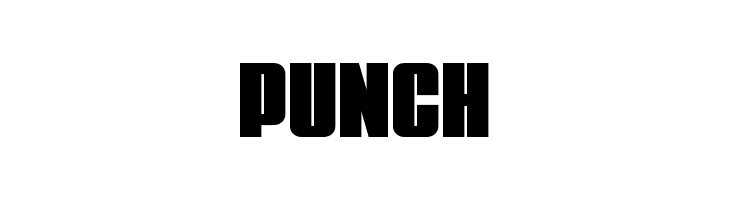
A bold, condensed, and italic font with a modern, dynamic style.
A bold, expanded, and italic font with a modern and dynamic style.
A futuristic, multi-line font with a geometric and industrial design.
A futuristic, italicized font with a chrome-like, three-dimensional effect.
A modern, futuristic font with a gradient effect created by horizontal lines.
A modern, italicized font with a gradient effect and segmented lines.
A futuristic, geometric font with sharp angles and a sleek design.
A futuristic, italic font with sleek, angular characters and a tech-inspired design.
A geometric outline font with sharp, angular letterforms and a modern aesthetic.
A modern, italic outline font with a futuristic and dynamic style.